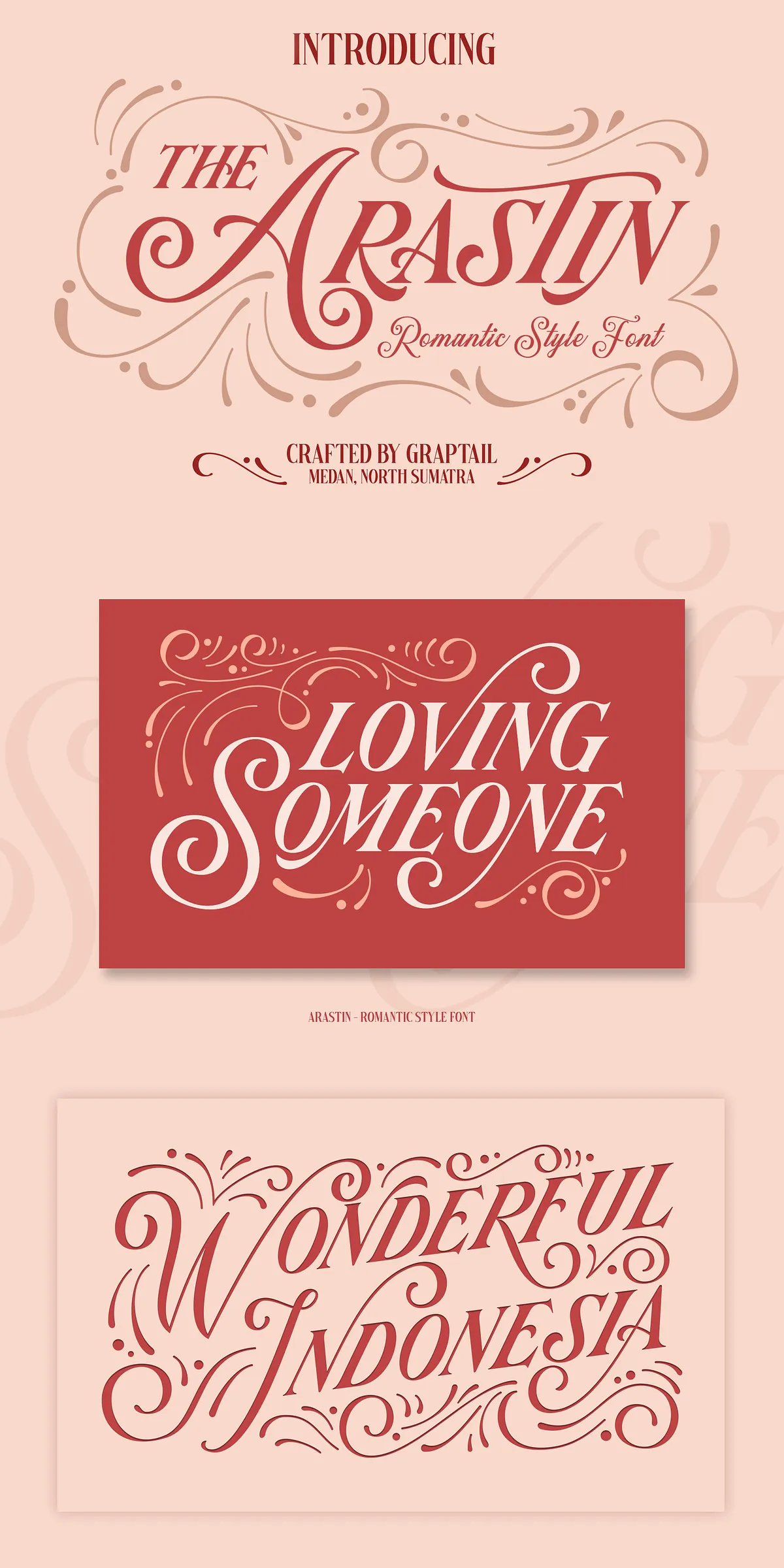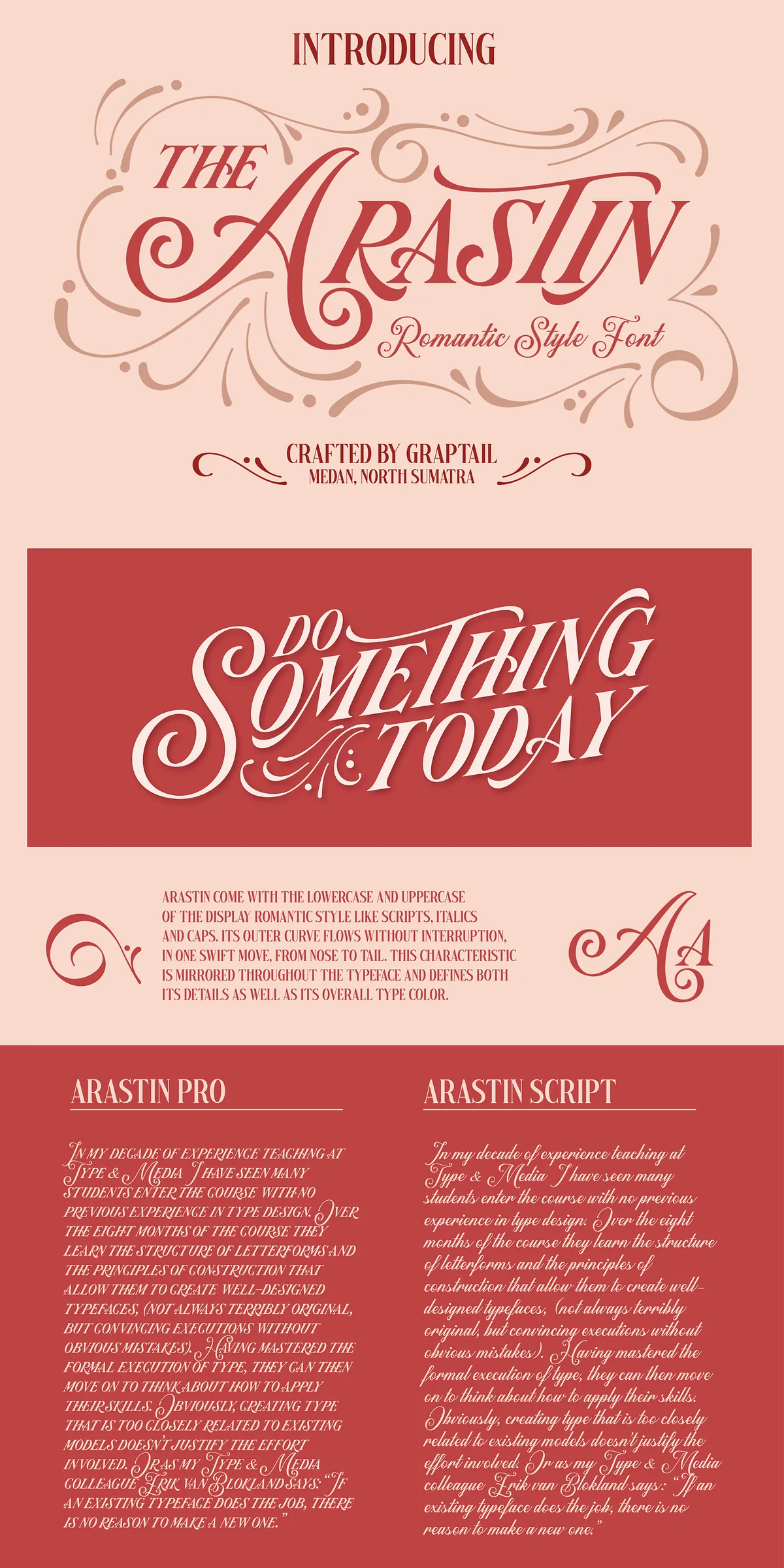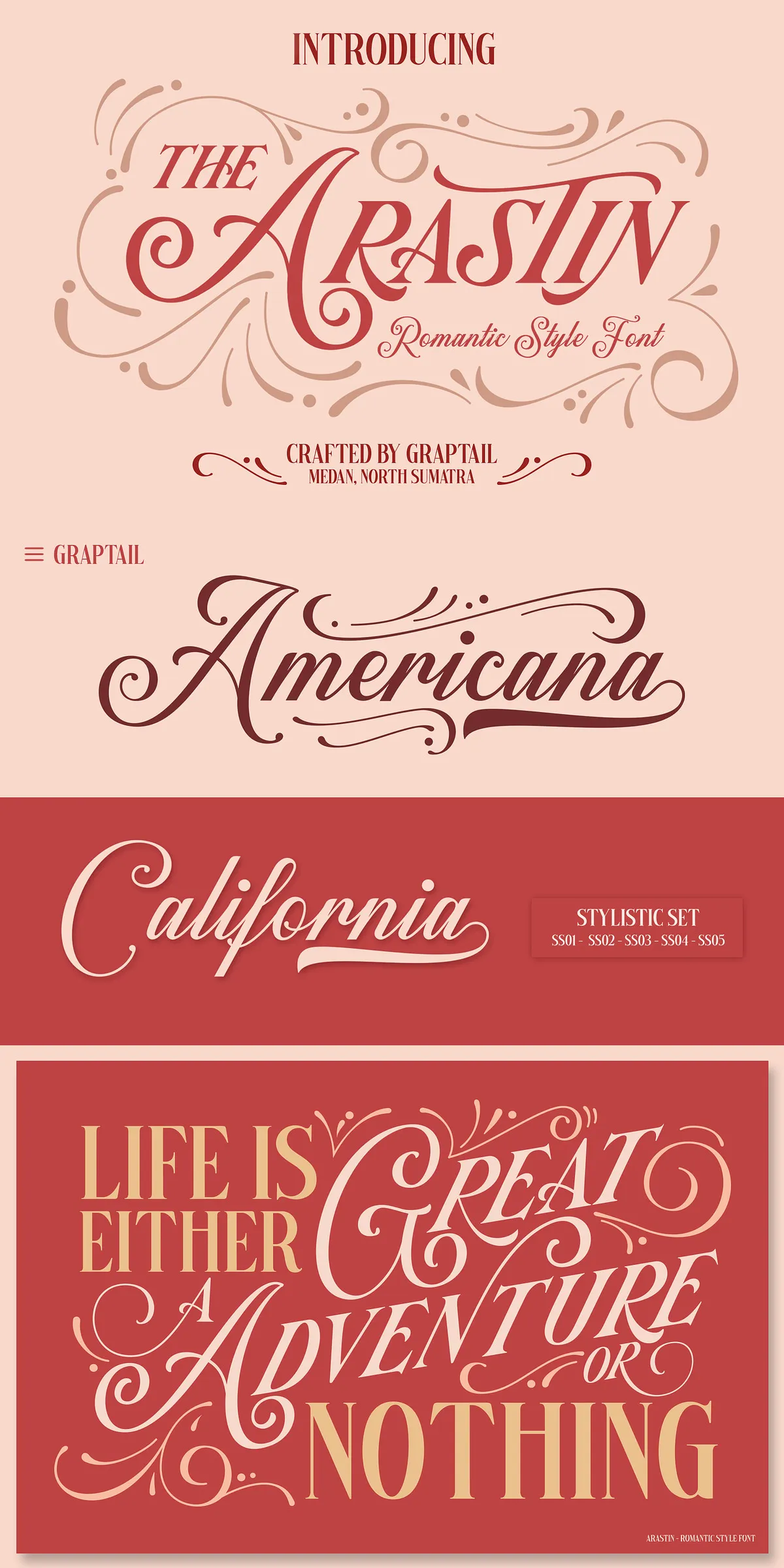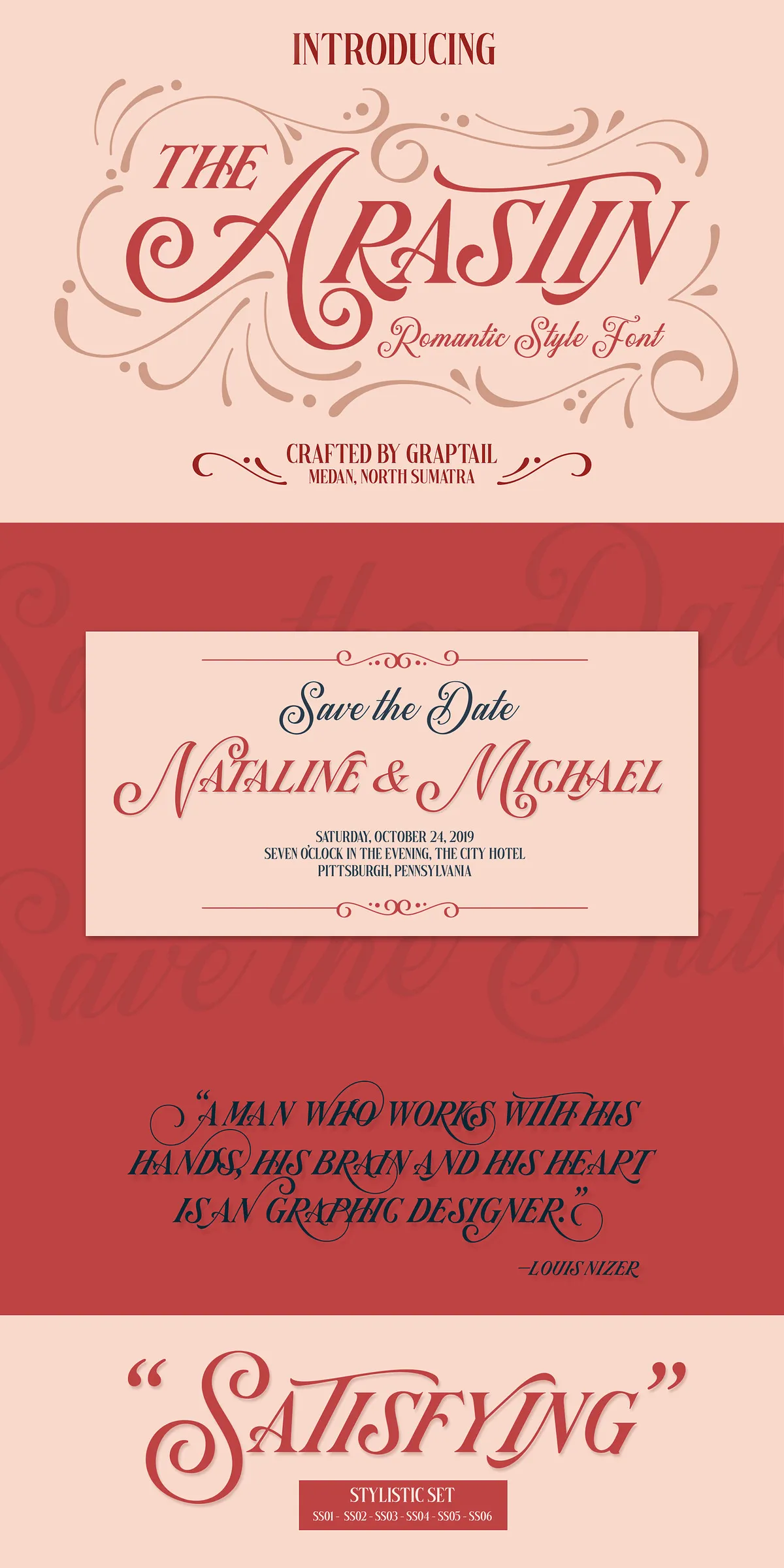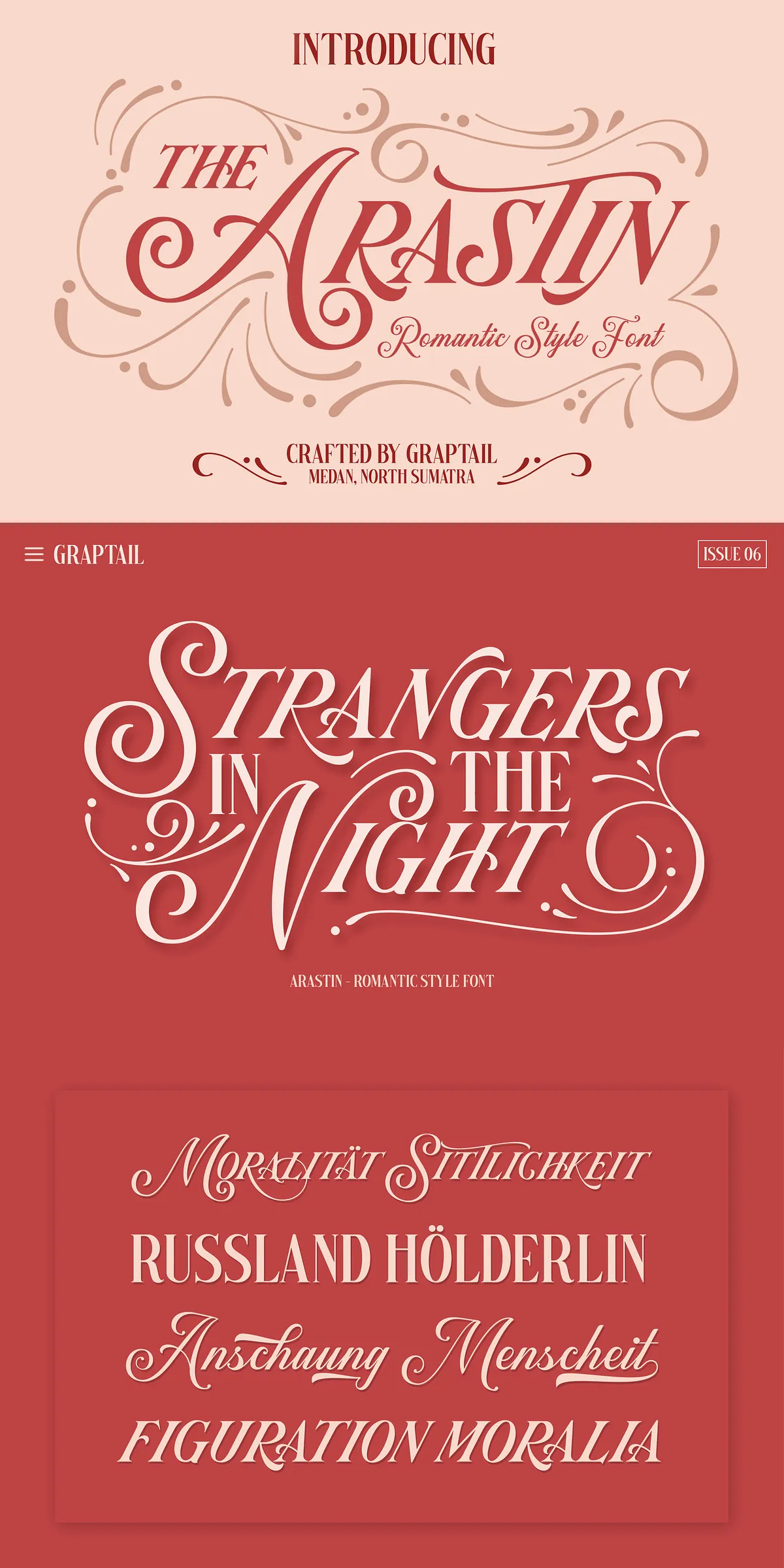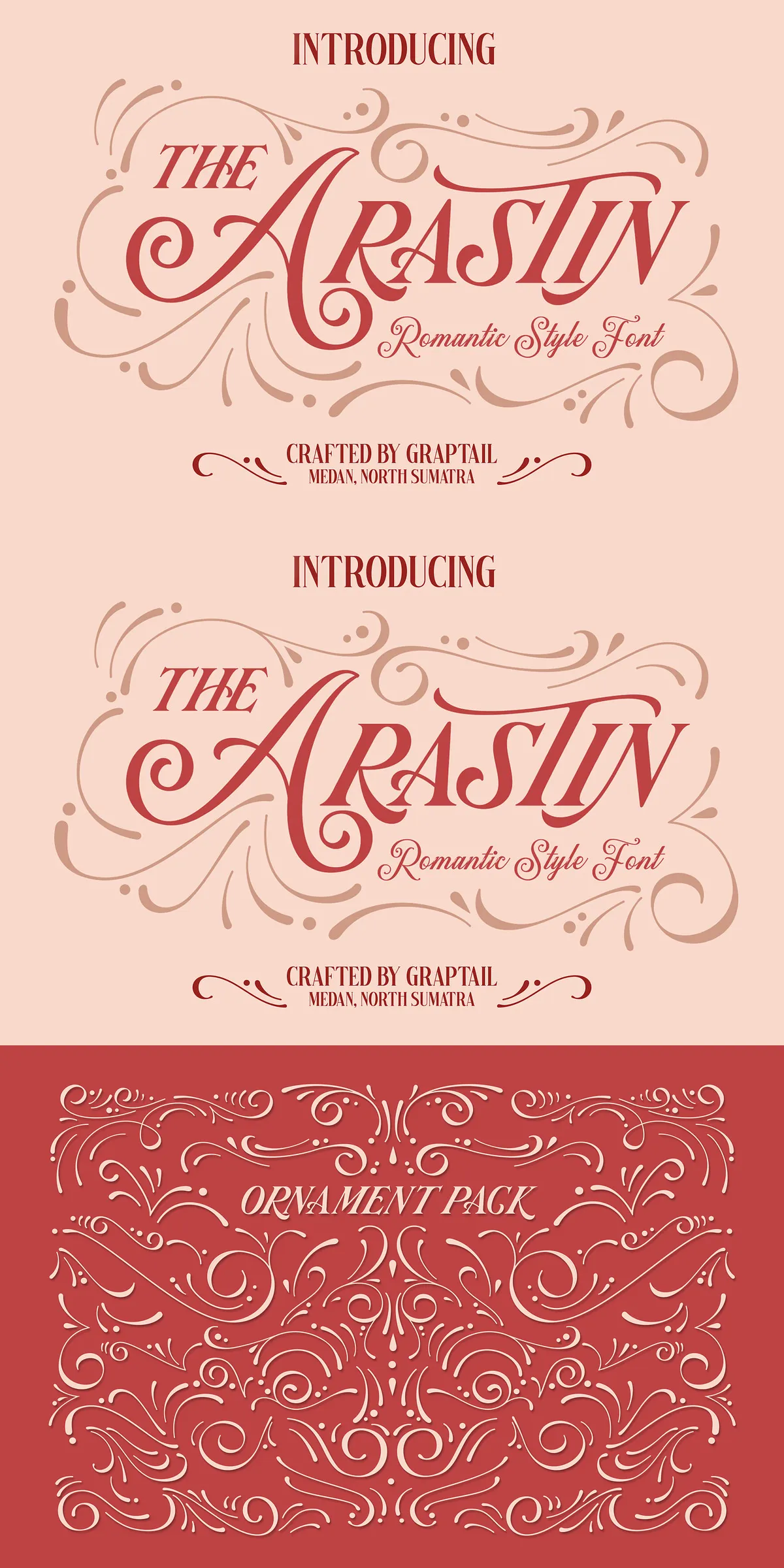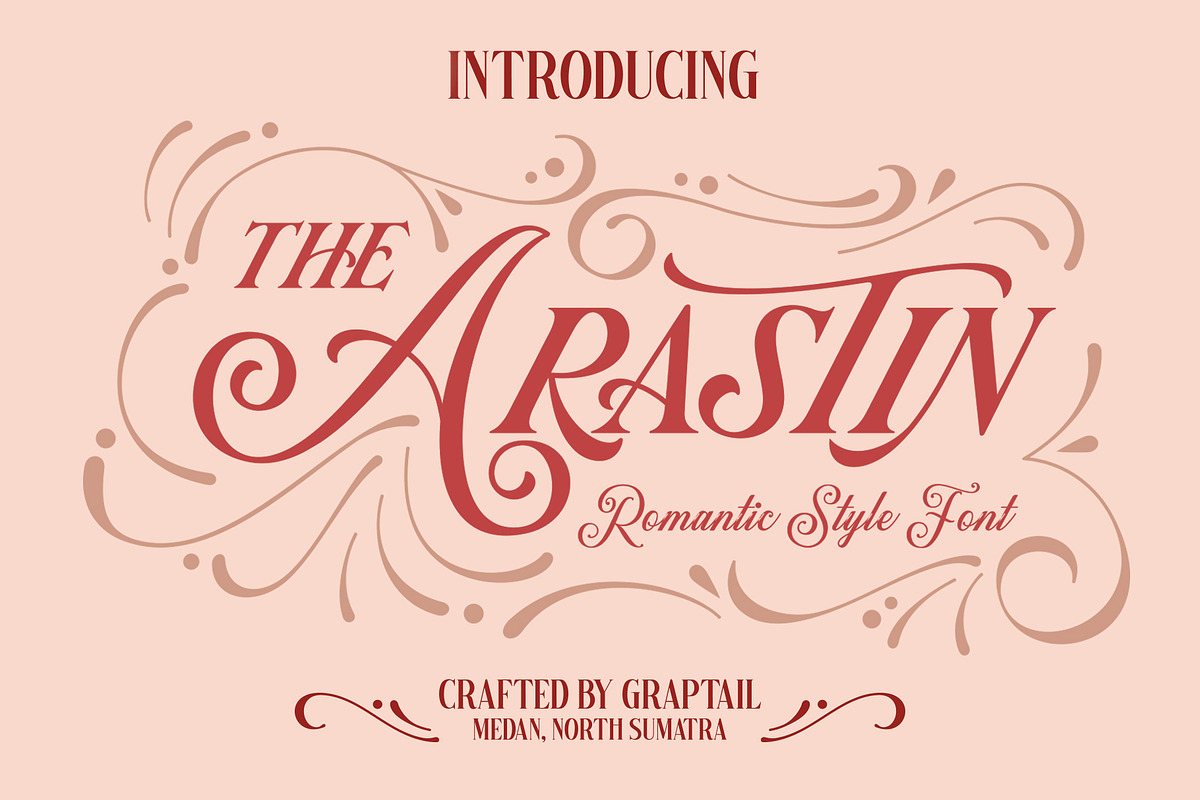
Meet Arastin — a display script font that captures the soul of romantic typography with a single, continuous motion from nose to tail. Each letter glides effortlessly, its outer curves uninterrupted, creating a visual rhythm that feels alive. This fluidity isn’t just a design choice — it’s the very essence of the typeface, defining its character, tonal color, and expressive power across every application. Whether used in bold headlines, intimate invitations, or striking logos, Arastin brings elegance and emotional depth to your design.
Dynamic Stylistic Alternates for Unlimited Creative Freedom
- Stylistic Alternates: Swap in refined or exaggerated flourishes with a single keystroke for instant visual variety.
- Stylistic Sets: Access curated collections of alternate characters tailored for specific design moods — from delicate to dramatic.
- Contextual Alternates: Automatically adjust letterforms based on surrounding characters for naturally fluid spacing and balance.
- All Alternates: Unlock the full spectrum of expressive variation — every glyph, every twist, every flourish at your fingertips.
With Arastin, you’re not just typing — you’re composing. Every letter can be reimagined, tailored to the unique personality of your project.
Elevate Your Project with OpenType Power
Arastin is engineered for modern design workflows, leveraging full **OpenType support** to deliver precision and control. Use professional design software like Adobe Illustrator, Photoshop, InDesign, Affinity Designer, or Sketch to access its advanced features. The typeface responds intelligently to context, ensuring harmonious spacing, refined typography, and professional results from the first word.
Effortless Access to Alternate Glyphs
Perfect for High-Impact Design Applications
Arastin was made to stand out. Its romantic, expressive nature makes it a favorite among designers who value both beauty and functionality.
Top 5 Use Cases for Arastin
- Logo & Brand Identity: Create a memorable brand personality with a unique, handcrafted touch.
- Poster & Billboard Design: Command attention with large-scale, visually rich headlines.
- Apparel & Merchandise: Bring luxury to T-shirts, tote bags, and accessories with flowing, eye-catching text.
- Invitations & Packaging: Add elegance and emotional resonance to wedding invites, gift boxes, and product labels.
- Postcards & Marketing Collateral: Capture your audience’s imagination with a personal, artistic tone.
Why Arastin Is a Designer’s Essential Tool
More than a font, Arastin is a creative partner. It combines expressive artistry with technical precision, making it ideal for both freelancers and agencies. Its deep OpenType features ensure clean, professional output across all projects. And with PUA encoding, you can copy and paste alternate characters directly — no complicated key commands, no confusion.
Use Arastin’s alternates in combination with subtle layering, color gradients, or subtle shadows to create depth. The fluid nature of the script thrives in rich, visual environments where movement and emotion can be explored.